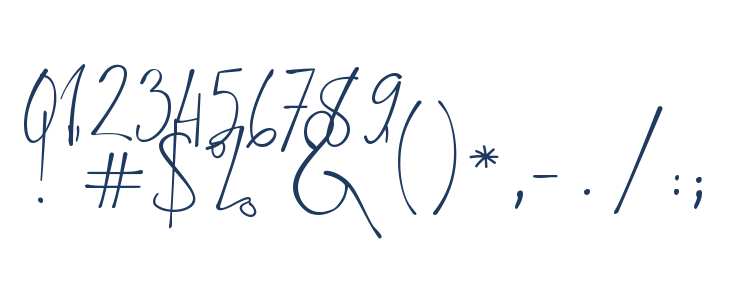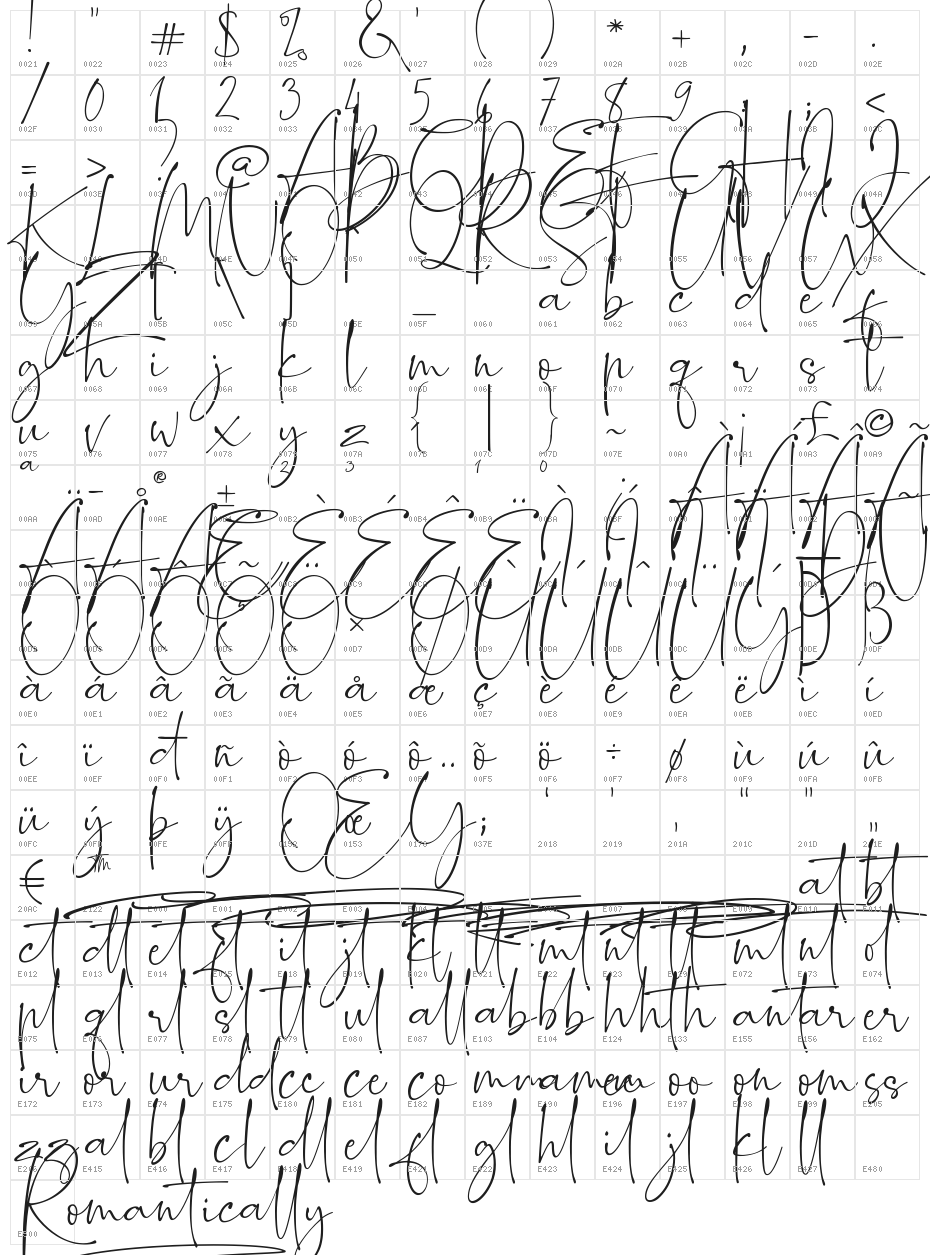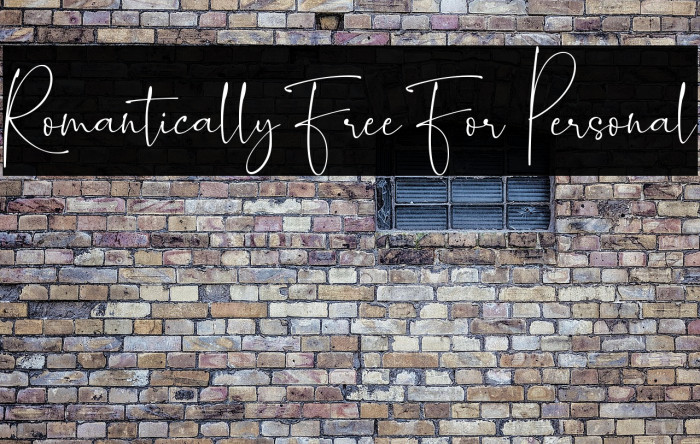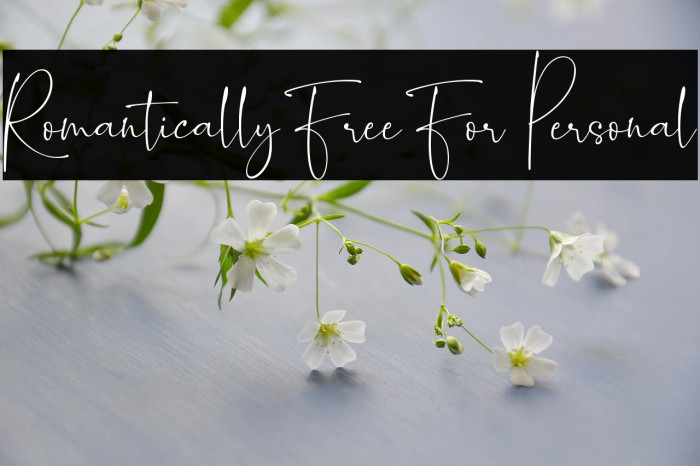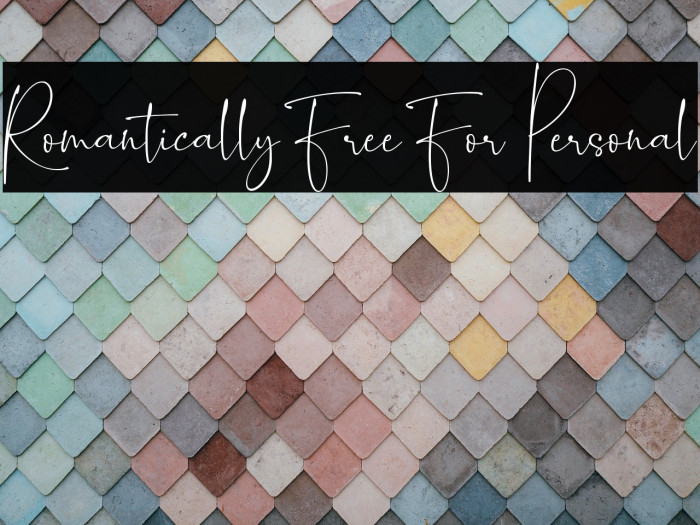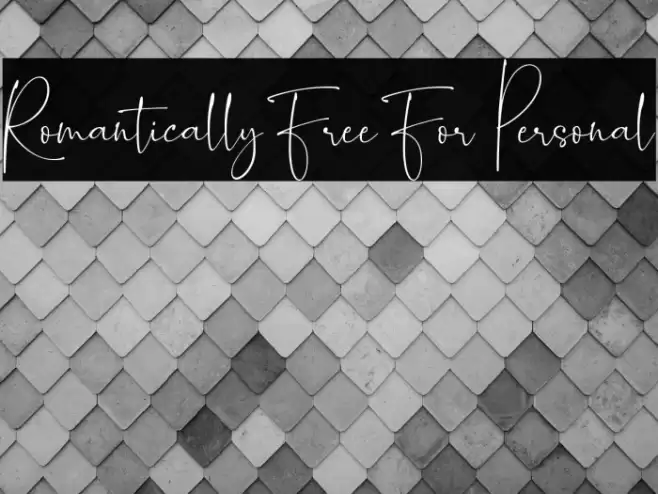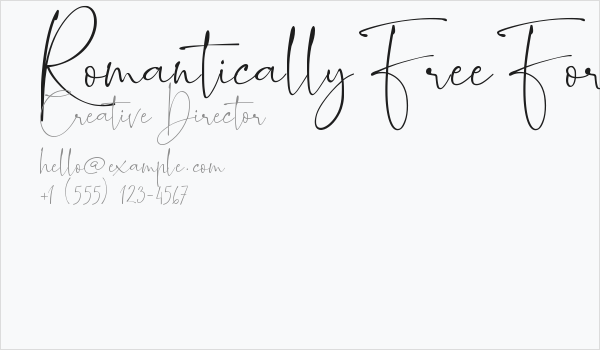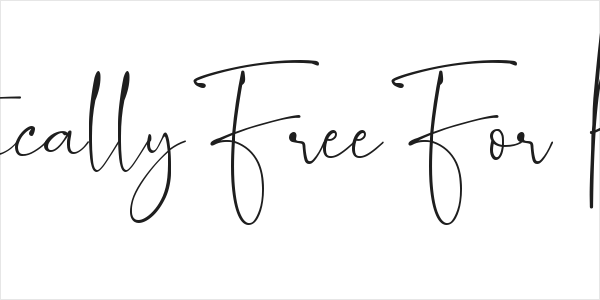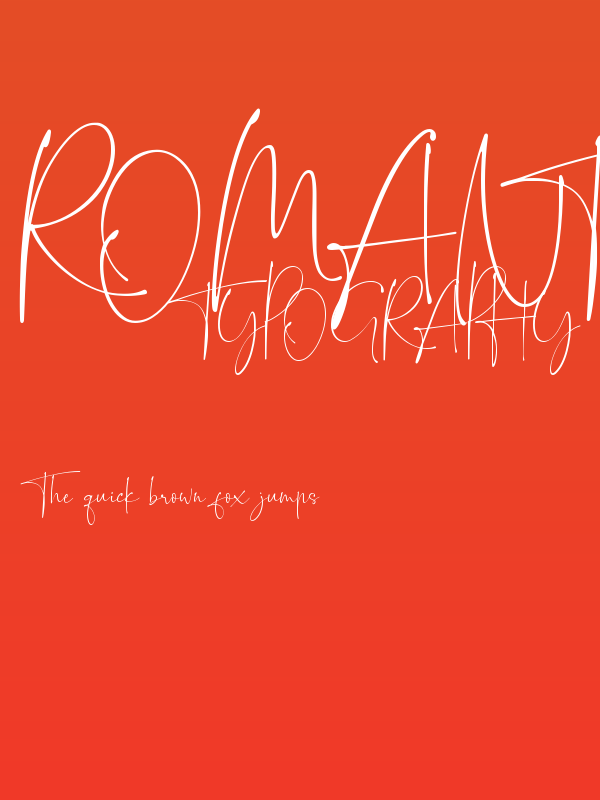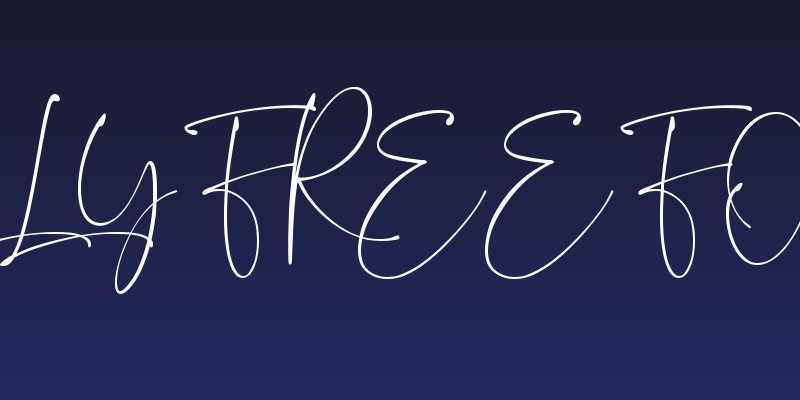
Romantically Free For Personal Font
Romantically Free For Personal Description
This font exudes a whimsical and romantic charm, characterized by its flowing, cursive style. The letters are elegantly intertwined, creating a sense of movement and fluidity. The uppercase letters are tall and slender, with delicate loops and swirls that add a touch of sophistication. The lowercase letters maintain a consistent flow, with some characters featuring unique flourishes that enhance their visual appeal. The numerals are similarly styled, with a graceful curve that complements the overall aesthetic. Special characters are thoughtfully designed, integrating seamlessly with the rest of the font. This font is perfect for projects that require a personal, handwritten touch, offering a sense of warmth and creativity.
Overall StyleRomantic, Whimsical
Use CaseLogos, Invitations, Personal Branding
Proposed ProjectsIdeal for wedding invitations, greeting cards, personal branding, and creative projects that require a handwritten touch.